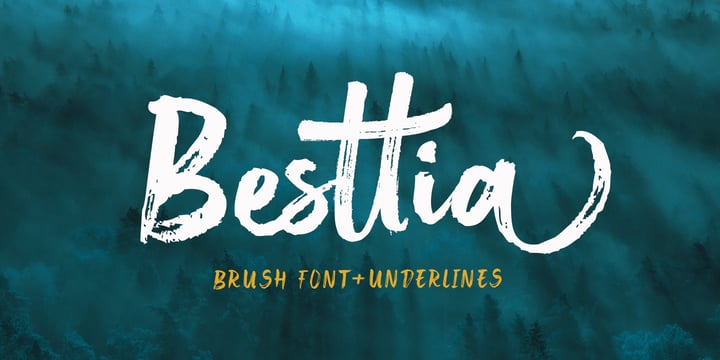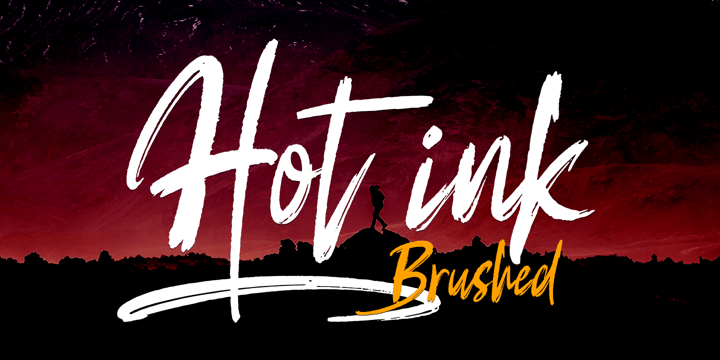
Artistic Font Bundles
The Artistic Font Bundle is packed with 87 beautiful fonts. This collection includes a wide variety of font styles. Also supports PUA encoding. You can easily access all the glyphs and swash!